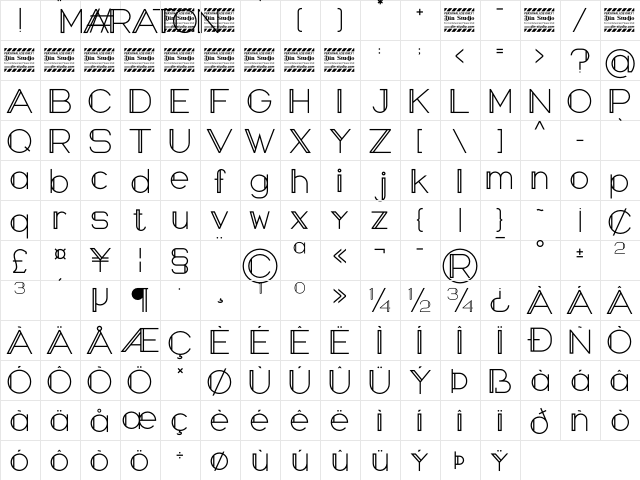
Maraton Personal Use Regular
| Designer | Donis Mifathudin |
Design Context for Maraton Personal Use Typeface
Maraton Personal Use takes a measured approach to typography — its balanced proportions and neutral character make it a reliable workhorse for both digital and print work.